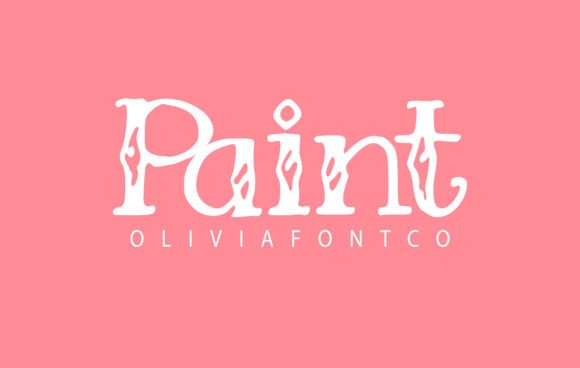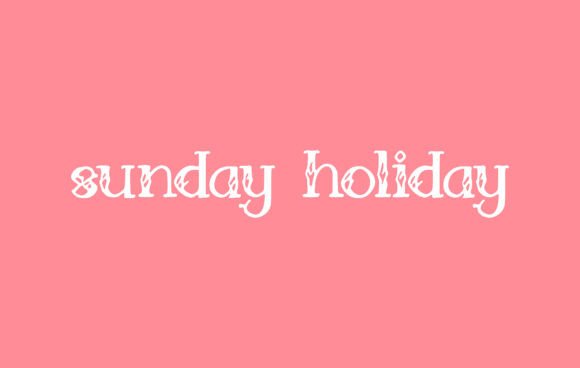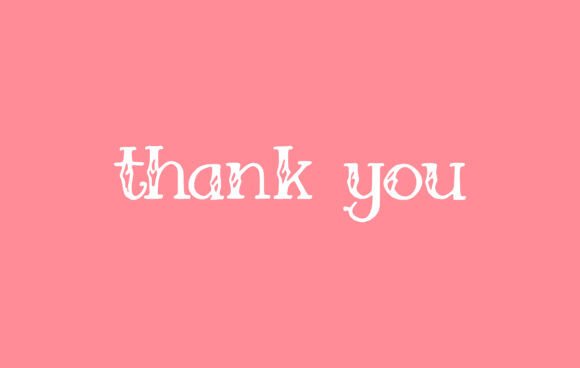
Paint Font
About the Paint Font
Unleash your creativity with Paint Font, a versatile font perfect for a wide range of applications. Paint font is an authentic handwritten font with a romantic touch. Expertly designed to be a true favorite, this font has the potential to take your creative ideas to the highest level
Paint Font’s romantic, handwritten style excels in headlines, short text blocks on invitations or packaging, and social media graphics where its expressive quality shines. However, its less-than-optimal x-height makes it unsuitable for extended body text or UI elements requiring high legibility.
The font’s personality is undeniably charming and slightly whimsical. It works best for brands aiming for a handcrafted, intimate feel, such as artisan goods, boutiques, or wedding-related businesses. Avoid pairing it with overly geometric or stark sans-serifs.
Consider pairing Paint Font with a clean, neutral sans-serif like Lato for balance, or a classic serif like Garamond for a more traditional yet still complementary feel. A delicate script font could also add layers of texture, but choose one with a similar weight and consistent stroke for visual harmony.
Paint Font Usage Examples